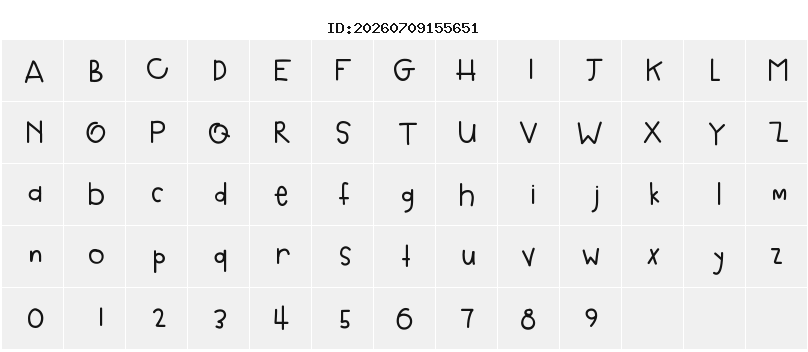
• Font Name: DPBloated
DPBloated.ttf is a modern, elegant sans-serif font designed for ultimate readability and visual harmony. Perfect for branding, headlines, web design, and print materials.